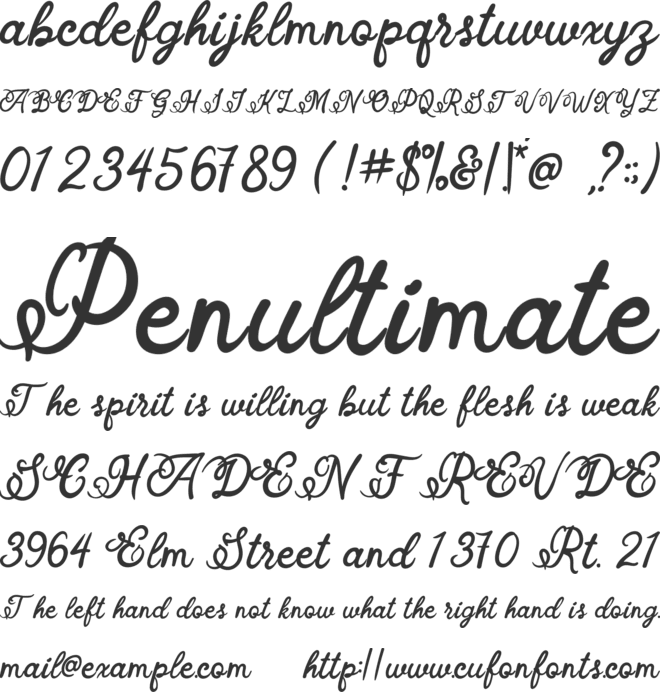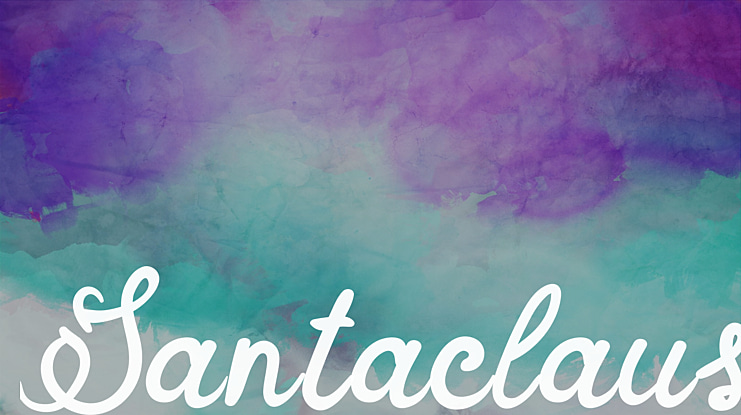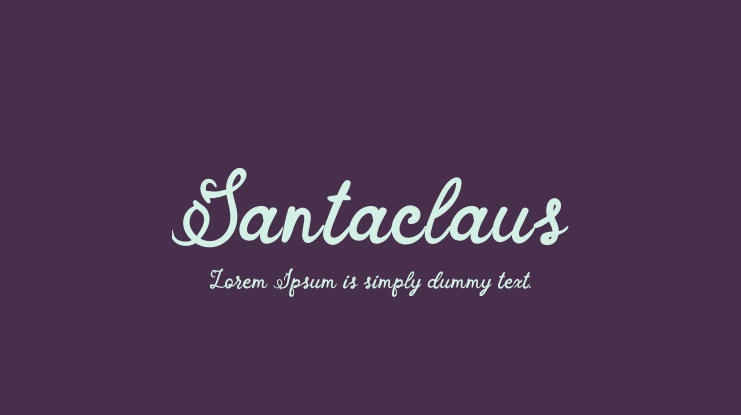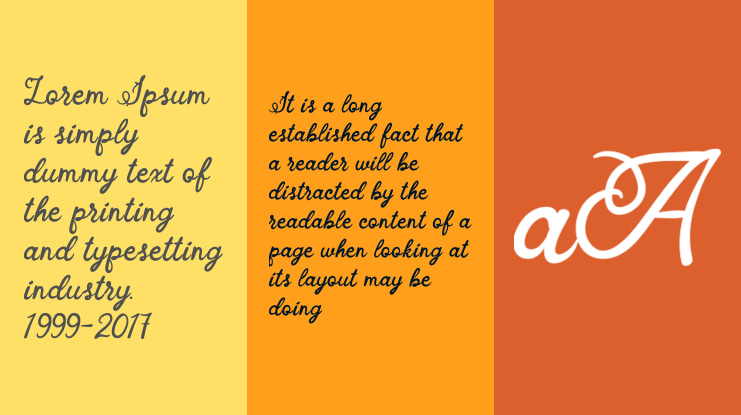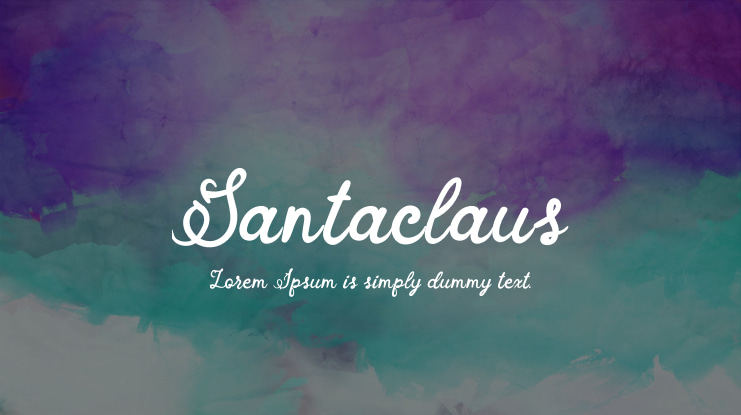
Santaclaus Font
the latest style letters perfect for wall displays, wedding invitations, social media post logos,
advertising, product packaging, product design, labels, photography, watermarks, invitations, stationery,
and any project that requires handwriting.